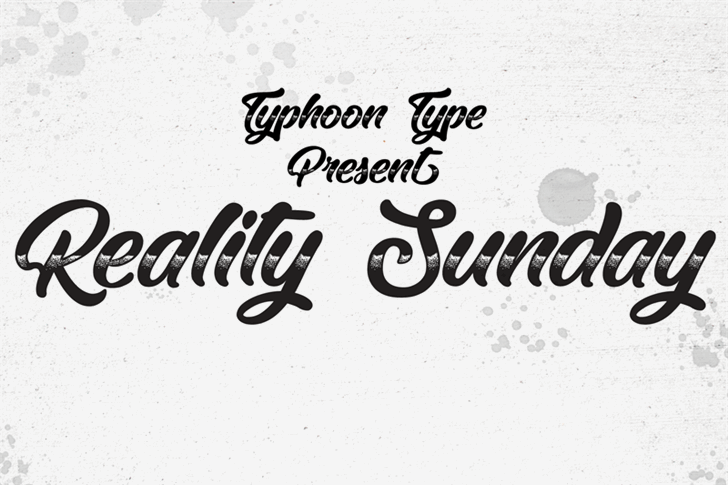
Free Reality Sunday Font
Featuring the adorable free reality sunday font. Font Space has created this amazing and beautiful font. Showcase your designs like a graphic design pro by adding a new touch with this cool font.